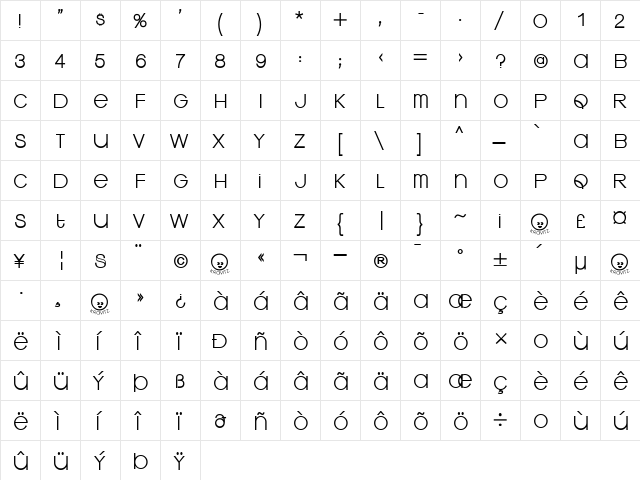
Kravitz Thermal
Design Context for Kravitz Typeface
Kravitz offers clean, dependable letterforms without strong stylistic allegiance, making it a practical choice for designers who need flexibility.